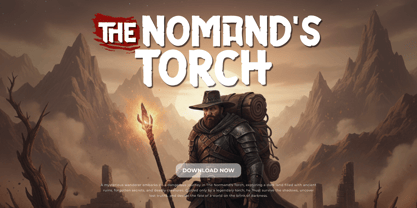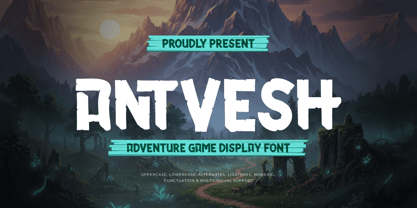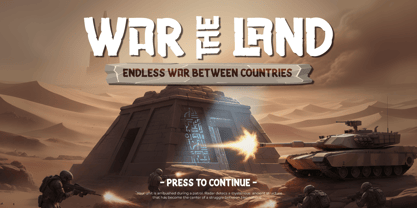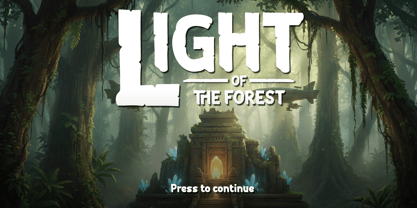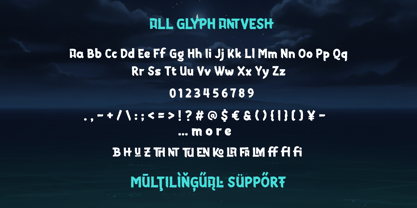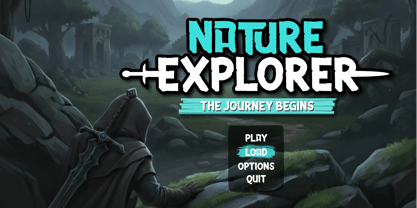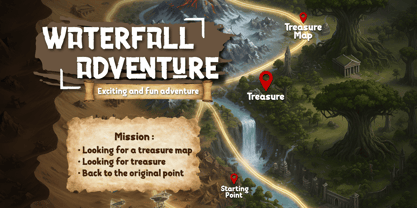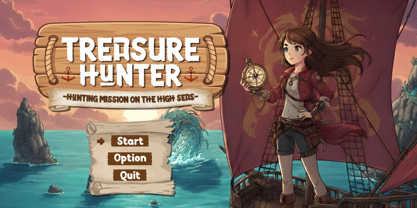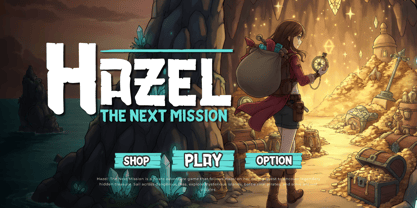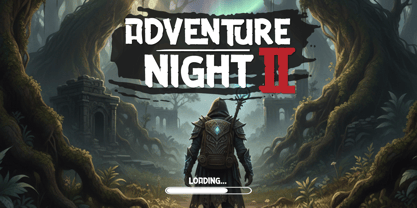
Antvesh is a bold display font with a hand-drawn character, designed specifically for gaming and cinematic industries. It features a solid structure with rugged edges that provide an organic yet powerful visual appearance. This font is built to maintain high legibility even in complex layouts, making it a reliable choice for titles that need to look professional and authoritative without being overly decorative.
Based on its versatile design, Antvesh adapts well to several distinct genres. It is highly functional for Game UI/UX elements, such as mission logs, navigation maps, and interactive buttons. The typeface’s anatomy allows it to fit naturally into dark fantasy settings, modern military themes, or vibrant action-adventure projects. With over 370+ glyphs, including a dedicated Outline style, this font provides the necessary flexibility for layering and creating visual hierarchy in posters, logos, and digital interfaces.
Antvesh